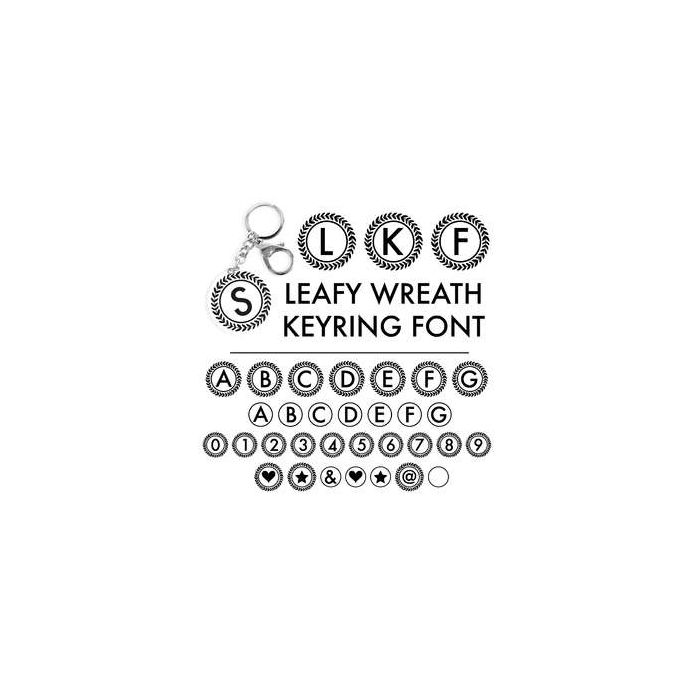
Leafy Wreath Keyring Font - Contains 26 Circle Leafy Wreath monogram Initials (allocated to uppercase letters), 26 Plain Monogram Initials (allocated to lowercase letters), Leafy Wreath Monogram Numbers and Characters as well as a plain Leafy Wreath Monogram Frame perfect for use on Circular Keyrings (or other items!). All Special characters are allocated to keys and available through the character map / glyphs panel.